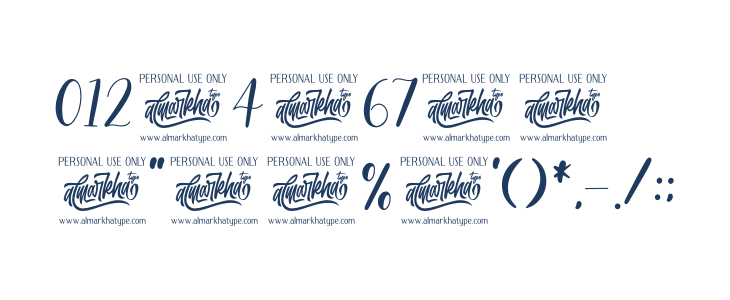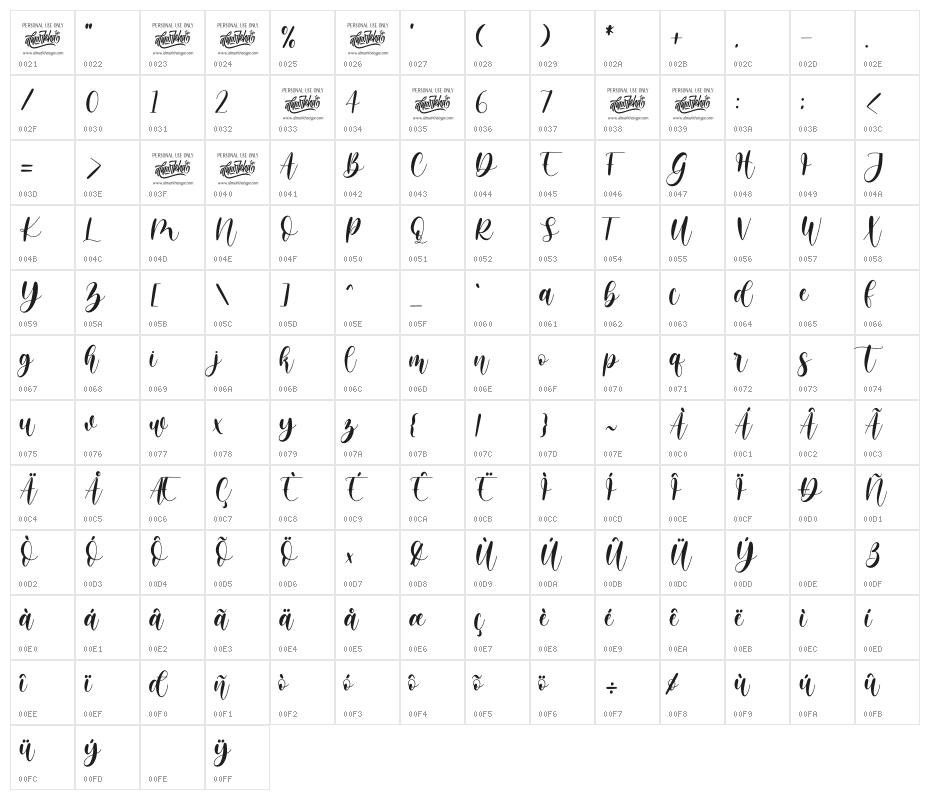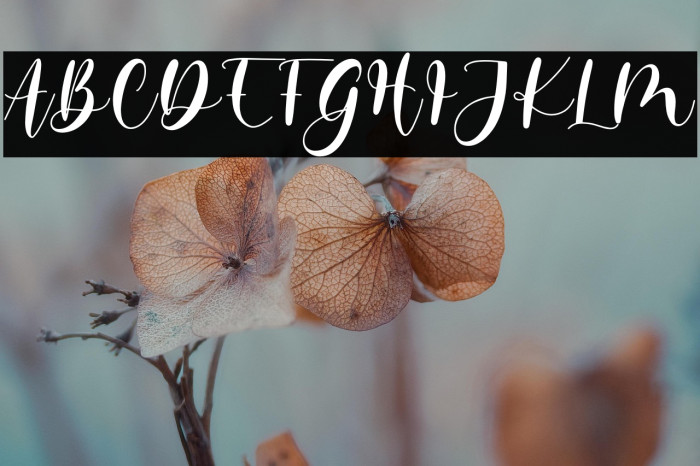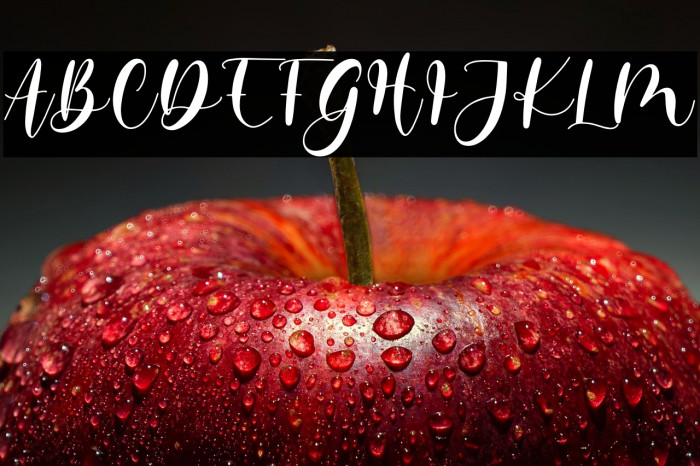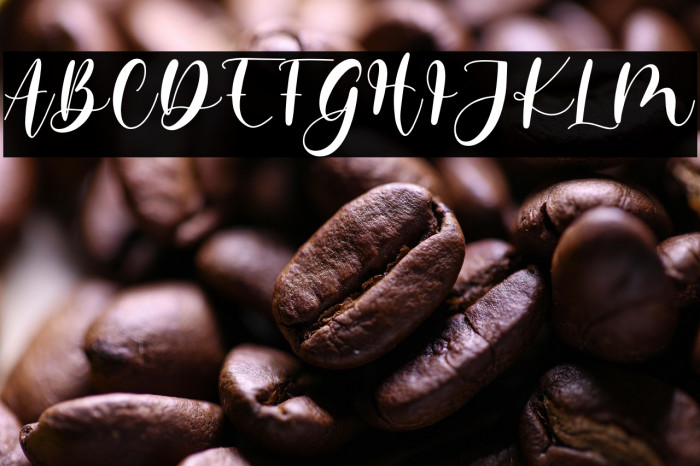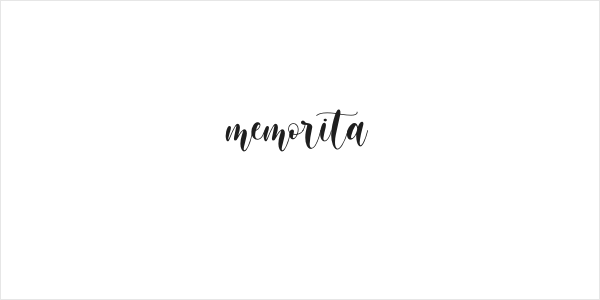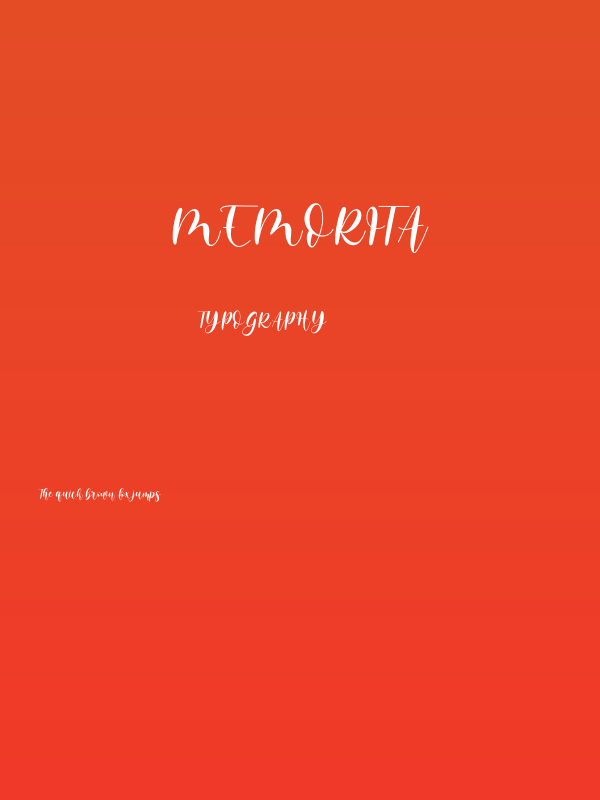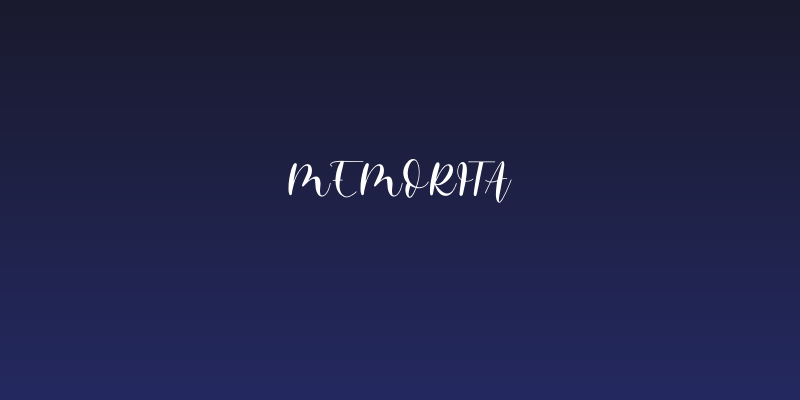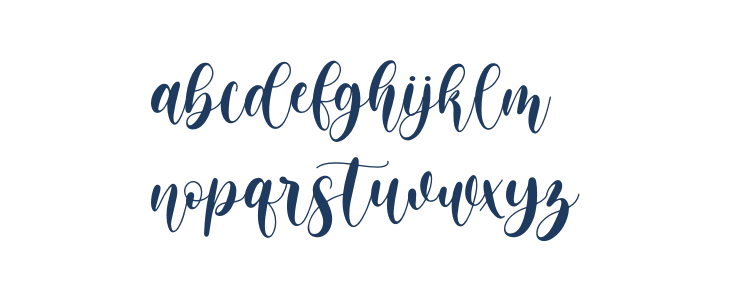
memorita Font
memorita Description
This font features an elegant and flowing script style, characterized by its smooth, cursive letterforms that mimic the fluidity of handwriting. The uppercase letters are bold and expressive, with sweeping curves and loops that add a sense of movement and grace. The lowercase letters maintain a consistent style, with some characters featuring distinctive flourishes that enhance their visual appeal. The numerals and special characters are designed to complement the overall script aesthetic, ensuring a cohesive look across all text elements. This font's artistic flair makes it ideal for creative and decorative applications.